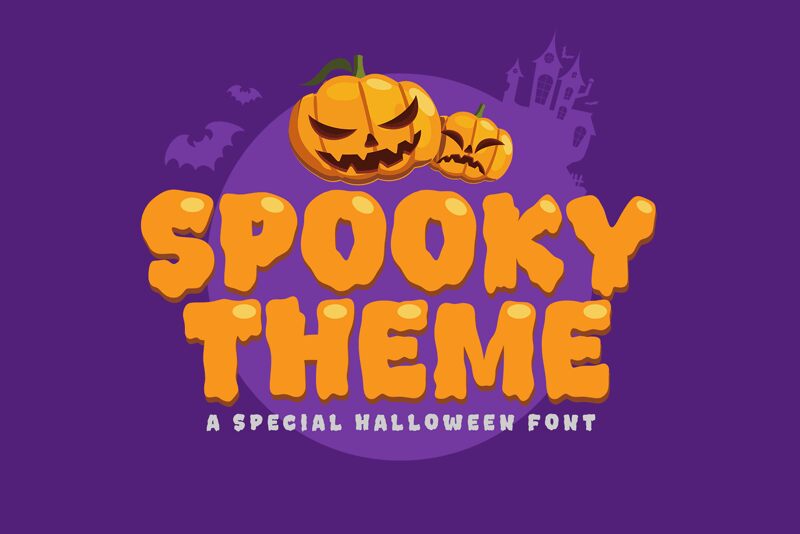
Spooky Theme
Spooky Theme font by Khurasan is a free Halloween display font. Built for goosebumps, it’s thick, blobby, and delightfully uneven—like wet ink that pooled and dried with ragged edges. The heavy weight and punchy rhythm make headlines slam into view, while the organic wobble keeps everything feeling handmade and a little mischievous.
Using Spooky Theme, your Halloween flyers, haunted house posters, trick-or-treat bags, party invites, YouTube thumbnails, stickers, and seasonal merch get instant mood without extra graphics. This free font reads boldly on dark backdrops and grainy textures; set it big and tight for maximum thump. Pair with a plain, narrow sans-serif for body copy to let the gooey letters take center stage.